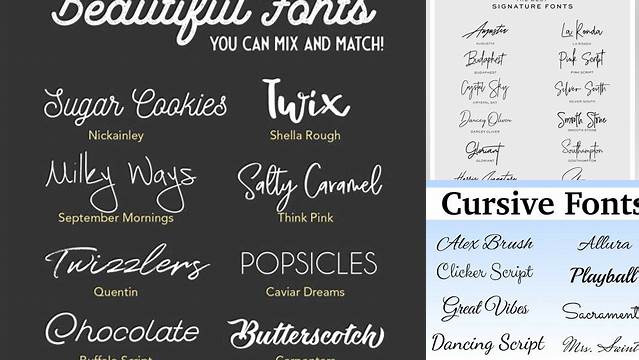
Free Cursive Fonts For Word: Download Now!
Hey guys! Are you looking to add a touch of elegance and personality to your documents? Well, you've come to the right place! Cursive handwriting fonts can transform your Word documents from plain and simple to beautifully sophisticated. Whether you're working on a wedding invitation, a heartfelt letter, or just want to give your resume a stylish flair, choosing the right font is key. Let’s dive into the world of cursive fonts and how you can download cursive handwriting font for Word free!
1. What is Cursive Handwriting Font and Why Use It?
So, what exactly is a cursive handwriting font? It's basically a font that mimics the flowing, connected strokes of human handwriting. Unlike block letters that stand apart, cursive fonts link characters together, giving a sense of fluidity and grace. Using a cursive font can really elevate your documents. It adds a personal touch that feels more intimate and less sterile than standard fonts like Times New Roman or Arial. Think about it: a handwritten note carries so much more weight than a typed one, right? Cursive fonts try to capture that same essence. This is why so many people download cursive handwriting font for Word free – it's about making a connection with your reader.
5. Best Cursive Fonts for Formal Invitations
Planning a wedding or a fancy event? A beautiful cursive font can set the perfect tone for your invitations. Fonts like Brush Script MT, Edwardian Script ITC, and Great Vibes are classic choices that exude elegance and sophistication. These fonts have that timeless, traditional feel that's perfect for formal occasions. Imagine receiving an invitation written in a flowing, graceful script – it instantly feels more special, doesn't it? When you download cursive handwriting font for Word free for your invitations, you're adding a touch of class without breaking the bank.
6. Cursive Fonts for Personal Letters and Notes
For more personal correspondence, you might want to choose a font that feels a little more relaxed and friendly. Fonts like Kristen ITC, Lucida Handwriting, and Comic Sans MS (yes, even Comic Sans has its place!) can add a touch of warmth and personality to your letters and notes. The goal here is to create a handwritten feel that’s approachable and inviting. When you download cursive handwriting font for Word free for personal use, you’re adding a heartfelt touch to your communications.
7. Using Cursive Fonts for Business Documents
While cursive fonts can add a touch of style, it's important to use them sparingly in business documents. Overdoing it can make your documents look unprofessional or difficult to read. Save the cursive fonts for headings, signatures, or accent elements. For the main body text, stick to clean, legible fonts like Arial or Calibri. The key is balance – you want to stand out, but you also need to maintain clarity and professionalism. If you download cursive handwriting font for Word free for business, think carefully about how and where you use it.
8. Cursive Fonts for Resumes and Cover Letters
In the competitive job market, making a strong first impression is crucial. A well-chosen cursive font can help your resume and cover letter stand out. Use it sparingly, perhaps for your name or section headings, to add a touch of personality without sacrificing readability. Fonts like Segoe Script or Bradley Hand ITC can strike a good balance between style and professionalism. Remember, the goal is to catch the recruiter's eye in a positive way. When you download cursive handwriting font for Word free for your job applications, make sure it enhances rather than distracts from your qualifications.
9. Pairing Cursive Fonts with Other Fonts
A crucial skill in typography is knowing how to pair fonts effectively. Cursive fonts often work well when paired with simple, sans-serif fonts like Arial or Helvetica. This creates a nice contrast and prevents your document from looking too cluttered. Think of the cursive font as the star of the show, and the sans-serif font as the supporting cast. They complement each other without competing for attention. If you download cursive handwriting font for Word free, experiment with different pairings to find the perfect combination for your project.
10. Understanding Font Licensing for Free Fonts
Before you start using a free font, it’s crucial to understand its licensing terms. Most free font websites will clearly state the license for each font. Some fonts are free for personal use only, while others can be used for commercial projects as well. Pay close attention to these details to avoid any copyright issues down the road. It’s always better to be safe than sorry! So, when you download cursive handwriting font for Word free, take a moment to read the fine print.
11. Troubleshooting Font Installation Issues
Sometimes, things don't go as smoothly as we'd like. If you're having trouble installing a font, there are a few things you can try. First, make sure the font file is not corrupted. Try downloading it again from the source. Second, ensure that the font file is in the correct format (.ttf or .otf). Third, restart your computer – this can often resolve minor glitches. If all else fails, check online forums or help resources for your operating system. Even if you download cursive handwriting font for Word free, technical issues can still pop up, so be prepared to troubleshoot!
12. Cursive Fonts for Creative Projects
Beyond documents, cursive fonts are fantastic for all sorts of creative projects. Think about using them for logos, branding materials, social media graphics, or even DIY crafts. A well-chosen cursive font can add a touch of personality and flair to your designs. Whether you're creating a logo for your small business or designing a birthday card for a friend, cursive fonts can help you express your creativity. That's why it's so great to download cursive handwriting font for Word free – you can use them for so much more than just documents!
13. The History and Evolution of Cursive Writing
Ever wonder where cursive writing came from? It has a rich history that dates back centuries. Cursive emerged as a practical way to write more quickly and efficiently, connecting letters in a single flowing stroke. Over time, it evolved into a beautiful art form, with different styles and traditions emerging in various cultures. Understanding the history of cursive can give you a deeper appreciation for the fonts that mimic it. When you download cursive handwriting font for Word free, you're connecting with a long and fascinating tradition.
14. Different Styles of Cursive Fonts
The world of cursive fonts is incredibly diverse. There are elegant scripts, playful handwritings, bold calligraphy styles, and everything in between. Each style has its own unique character and can convey a different mood or message. Exploring the different styles can help you find the perfect font for your project. Some cursive fonts are formal and sophisticated, while others are casual and whimsical. The options are endless when you download cursive handwriting font for Word free, so have fun experimenting!
15. Cursive Fonts Inspired by Calligraphy
Calligraphy, the art of beautiful writing, has had a major influence on cursive fonts. Many cursive fonts are inspired by traditional calligraphy styles, such as Copperplate and Spencerian. These fonts often feature elegant flourishes and graceful strokes, making them ideal for formal occasions or artistic projects. If you admire the artistry of calligraphy, exploring these fonts can be a great way to bring that aesthetic to your digital work. When you download cursive handwriting font for Word free, look for those with a calligraphic influence for a touch of class.
16. Cursive Fonts with a Modern Twist
While traditional cursive fonts have a timeless appeal, there are also many modern interpretations that add a contemporary flair. These fonts often incorporate clean lines, minimalist designs, or unique stylistic elements. They can be a great choice for projects that need a fresh, updated look while still maintaining the elegance of cursive. If you're looking for something that feels both classic and modern, explore these innovative fonts. You can download cursive handwriting font for Word free that perfectly blends the old and the new.
17. The Psychology of Font Choices
Did you know that font choices can actually influence how your message is perceived? Different fonts evoke different emotions and associations. Cursive fonts, for example, often convey feelings of elegance, creativity, or personalization. Understanding the psychology of fonts can help you make more informed decisions about which fonts to use in your projects. Think about the mood you want to create and choose a font that aligns with that. When you download cursive handwriting font for Word free, consider the message you want to send.
18. Cursive Fonts for Children's Projects
Cursive fonts can be a fun and engaging choice for projects aimed at children. They can make learning materials more appealing and add a touch of whimsy to invitations or decorations. However, it’s important to choose fonts that are easy to read, especially for young children who are just learning to read and write. Look for cursive fonts with clear letterforms and avoid overly ornate styles. If you download cursive handwriting font for Word free for kids' projects, prioritize legibility and fun!
19. Using Cursive Fonts in Graphic Design
Cursive fonts are a valuable tool in graphic design, adding a touch of personality and style to various projects. They can be used for logos, branding materials, posters, and more. The key is to use them strategically and in conjunction with other design elements. Think about how the cursive font complements the overall design and conveys the desired message. Whether you download cursive handwriting font for Word free or purchase premium fonts, they can be a game-changer in your design work.
20. Cursive Fonts for Web Design
While cursive fonts can add a unique touch to websites, they should be used sparingly. Overusing cursive fonts can make your website difficult to read and navigate. Save them for headings, logos, or accent elements, and use simpler fonts for the main body text. Also, ensure that the cursive font you choose is web-safe and renders well on different browsers and devices. If you download cursive handwriting font for Word free and want to use it on the web, test it thoroughly first.
21. Creating a Handwritten Signature with Cursive Fonts
A cursive font can be a great way to create a personalized handwritten signature for your digital documents. Instead of scanning your physical signature, you can simply type it using a cursive font. This can add a professional and authentic touch to your emails, contracts, or other important documents. Choose a font that closely resembles your natural handwriting style for the best results. It's a simple way to download cursive handwriting font for Word free and add a personal touch to your digital signature.
22. The Impact of Cursive Fonts on Readability
Readability is a critical factor to consider when choosing a font, especially for longer documents or body text. While cursive fonts can be beautiful, they are generally less readable than simpler fonts like Arial or Times New Roman. Overusing cursive fonts can strain your reader’s eyes and make your message less effective. Save cursive fonts for headings, titles, or short phrases where legibility is less of a concern. Remember, even if you download cursive handwriting font for Word free, readability should always be a top priority.
23. Exploring Cursive Font Generators
If you're looking for a quick and easy way to create cursive text, there are many online font generators that can help. These tools allow you to type in your text and instantly generate a cursive version using various fonts. While these generators can be convenient, they often have limitations in terms of font selection and customization. They can be a good starting point, but for more professional results, it’s still best to download cursive handwriting font for Word free and use it directly in your word processor or design software.
24. Tips for Choosing the Right Cursive Font
Choosing the right cursive font can feel overwhelming with so many options available. Start by considering the purpose of your project and the message you want to convey. Are you looking for something elegant and formal, or casual and playful? Think about the overall tone and style of your document and choose a font that complements it. Don’t be afraid to experiment with different fonts until you find the perfect fit. When you download cursive handwriting font for Word free, try out a few different styles before making a final decision.
25. Cursive Fonts and Accessibility Considerations
When using cursive fonts, it’s important to consider accessibility for all readers. Some cursive fonts can be difficult to read for people with visual impairments or learning disabilities. To ensure your documents are accessible, use cursive fonts sparingly and pair them with clear, legible fonts. You can also increase the font size and line spacing to improve readability. Being mindful of accessibility is crucial, even when you download cursive handwriting font for Word free.
26. Free vs. Premium Cursive Fonts
While there are many fantastic free cursive fonts available, premium fonts often offer more features and higher quality. Premium fonts may have a wider range of weights and styles, better kerning and ligatures, and more comprehensive character sets. If you’re working on a professional project or need a specific look, investing in a premium font may be worth it. However, for many everyday uses, the free options are more than adequate. So whether you download cursive handwriting font for Word free or buy a premium one, choose what suits your needs and budget.
27. The Future of Cursive Writing and Fonts
Cursive writing has seen its ups and downs over the years, but it continues to hold a special place in our culture. While handwriting skills may be declining in some areas, the aesthetic appeal of cursive remains strong. Cursive fonts allow us to bring the beauty of handwriting to our digital world. As technology evolves, we can expect to see even more innovative and creative cursive fonts emerge. The art of cursive, whether handwritten or digital, is likely to endure for many years to come. It's a testament to the enduring appeal of personal expression, even when you download cursive handwriting font for Word free.
28. Combining Cursive Fonts with Images
Cursive fonts can look stunning when paired with the right images. Whether you're designing a poster, a social media graphic, or a website banner, consider how the font interacts with the visuals. A cursive font can add a touch of elegance and personality to your images, but it’s important to choose a font that complements the overall style. Think about the colors, shapes, and mood of your images, and select a font that enhances them. Using a beautiful image and a well-chosen font is a recipe for visual success, especially if you download cursive handwriting font for Word free!
29. Cursive Fonts and Branding Consistency
If you're using cursive fonts for your business or brand, it’s crucial to maintain consistency across all your materials. Choose a font that reflects your brand’s personality and stick with it. Use it consistently in your logo, website, marketing materials, and other communications. This will help create a cohesive brand identity and make your business more recognizable. Consistency is key to building a strong brand, whether you use a font you download cursive handwriting font for Word free or a premium one.
30. The Best Cursive Fonts for Different Software
Different software programs may handle fonts in slightly different ways. Some fonts may look great in Word but not as good in Photoshop, or vice versa. It’s important to test your chosen font in the specific software you’ll be using. Pay attention to how the font renders, especially in terms of spacing and sharpness. If you’re working with multiple programs, it’s a good idea to choose fonts that work well across different platforms. This will ensure consistency in your designs, no matter where you use them. So before you fully commit to a font you download cursive handwriting font for Word free, give it a test run in your favorite programs!